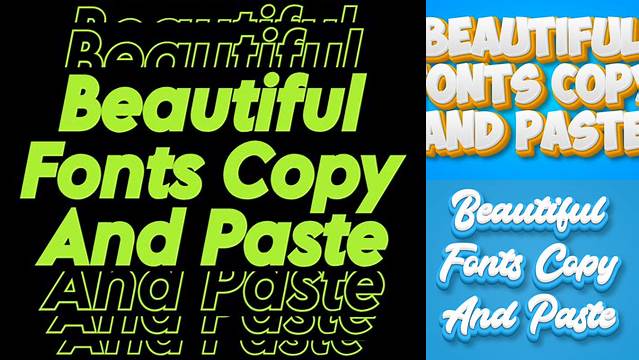
Lettering Fonts: Design, Copy, & Paste Guide For Stunning Typography
Lettering fonts design is a fantastic way to express yourself creatively, and guess what? You can totally copy and paste your way to some seriously awesome typography! We're diving deep into the world of lettering fonts, exploring how you can use them, where to find them, and how to make your designs pop. So, grab your coffee (or tea!), and let's get started. This guide is packed with tips, tricks, and all the info you need to level up your design game. Whether you're a seasoned pro or just starting out, there's something here for everyone. Ready to get your hands dirty (or, you know, your fingers tapping)? Let's go!
The Allure of Lettering Fonts Design: Copy and Paste Fundamentals
Lettering fonts design is more than just choosing a pretty font; it's about crafting a visual message that resonates with your audience. It's an art form that blends creativity, precision, and a dash of technical know-how. Lettering fonts, in particular, offer a unique advantage. They're often designed with a specific aesthetic in mind, allowing you to convey a certain mood or style with just a few carefully chosen characters. The beauty of lettering fonts design lies in its versatility. You can use them for everything from creating eye-catching headlines to designing logos and social media graphics. And the best part? You don't have to be a master calligrapher to create stunning designs. Thanks to the wonders of copy and paste, you can easily incorporate these beautiful fonts into your projects, saving you time and effort while still achieving professional-looking results. Understanding the fundamental principles of design, such as typography hierarchy, kerning, and leading, will further enhance your ability to create visually appealing layouts. By understanding how these elements work together, you can effectively guide the viewer's eye and create a cohesive design that clearly communicates your message. Choosing the right font is key. Different fonts evoke different feelings and styles. A bold, sans-serif font might be perfect for a modern, minimalist design, while a delicate script font could be ideal for a romantic invitation. There are endless possibilities, so take some time to experiment and find what works best for your project. The copy and paste method makes it incredibly easy to experiment with different fonts and styles without the hassle of manually drawing each letter.
Finding Your Perfect Lettering Fonts: Copy and Paste Resources Galore
So, where do you find these amazing lettering fonts that you can simply copy and paste? The internet is your oyster! There are tons of resources available, both free and paid, that offer a vast selection of fonts to suit any style. A great place to start is Google Fonts. This platform offers a wide variety of free, open-source fonts that you can download and use for both personal and commercial projects. They also have a fantastic search feature that allows you to filter fonts by various criteria, such as style, thickness, and even the language it supports. This is a lifesaver when you're searching for that perfect font. Next, explore sites like DaFont and Font Squirrel. These websites host thousands of fonts submitted by designers worldwide. Be sure to check the licensing agreements before using any font from these sites, as some may be free for personal use only, while others offer commercial licenses. If you're looking for something a little more premium, sites like Creative Market and Envato Elements offer high-quality, professionally designed fonts. These usually come at a cost, but the investment can be worth it if you're looking for unique and stylish fonts that will set your designs apart. These platforms often provide a more curated selection and additional design resources, such as mockups and graphics, to help you create a cohesive brand identity. Many designers also sell their fonts directly on their websites or through online marketplaces like Etsy. This is a great way to support independent artists and find fonts that aren't as widely used. Remember to always consider the legality of using a font. Respect the designer's licensing terms to avoid any legal issues. Finding the perfect lettering fonts with the copy and paste method is about exploring what suits your project.
Mastering Copy and Paste in Lettering Fonts: Design Made Easy
Alright, you've found your perfect lettering fonts, now what? Let's talk about the actual copy and paste process. It's as simple as it sounds, but there are a few tips and tricks that can help you maximize your results. First, identify the text you want to convert into lettering fonts. It could be a headline, a quote, or even a full paragraph. Select the text, copy it, and then paste it into your design software, such as Adobe Photoshop, Illustrator, or even Canva. Make sure the program supports the font you're trying to use. Some software might require you to install the font before you can use it. Most design programs have a font selection panel where you can browse your installed fonts and choose the one you want. Once you've chosen your font, adjust the size, color, and spacing to fit your design. Don't be afraid to experiment! Try different sizes, colors, and effects to see what looks best. Kerning (the space between individual letters) and leading (the space between lines of text) are crucial elements that can greatly affect the readability and aesthetic appeal of your text. Lettering fonts often have unique kerning and spacing that adds to their visual appeal. You can adjust these settings in your design software to fine-tune the look of your text. Consider using special characters and glyphs. Many lettering fonts include extra characters, such as swashes, flourishes, and alternative letter forms. These can add a touch of elegance or playfulness to your design. To access these characters, you'll often need to open the glyphs panel in your design software. Another cool trick is to copy and paste individual letters. This gives you more control over the placement and arrangement of each letter. You can then manually adjust the position and orientation of each letter to create custom lettering effects. Don't be afraid to overlap letters or create interesting arrangements! Copy and paste is your friend.
Font Pairing Power: Copy and Paste Techniques for Harmonious Designs
One of the biggest challenges in lettering fonts design is pairing fonts effectively. Choosing fonts that complement each other can make your design look polished and professional. Pairing fonts is a bit like putting together an outfit: you want to create a cohesive look that's both visually appealing and functional. Here are a few tips on how to choose the perfect font pairings: First, consider the style of your design. If you're creating a modern and minimalist website, you might pair a clean sans-serif font for the headlines with a slightly more decorative sans-serif or serif font for the body text. If you're going for a more vintage look, you could pair a script font with a classic serif font. Look for contrasts and similarities. Contrasting fonts can create visual interest, while similar fonts can convey a sense of harmony. For example, you could pair a tall, bold sans-serif font with a short, condensed one. Alternatively, you could pair two fonts that share similar letterforms or design elements. Try pairing a display font with a body font. Display fonts are often used for headlines and titles, while body fonts are used for longer blocks of text. The body font should be easy to read and should complement the display font without overpowering it. Use font pairing tools. There are many online tools that can help you find great font pairings. These tools often suggest fonts based on their styles and how they work together. Experiment and iterate. Once you have a few font pairings in mind, try them out in your design. See how they look together and make adjustments as needed. When using copy and paste, ensure that you maintain the consistency of your font pairings throughout your design. This will help create a cohesive look that is easy to read and visually appealing. Consider the font's personality. Does the font feel playful, serious, or elegant? Pair fonts that have a complementary personality to ensure your design delivers the right message. Avoid mixing fonts that clash. For example, don't pair a super-bold font with a delicate script font unless you're going for a specific, edgy look. Font pairing, with the help of copy and paste, is a great tool.
Lettering Fonts for Logos: Copy and Paste to Brand Identity
Lettering fonts are a powerful tool for creating logos that capture the essence of your brand. A well-designed logo can be the cornerstone of your brand identity, instantly recognizable and memorable. Choosing the right lettering fonts for your logo is crucial because it sets the tone for your entire brand. It conveys your brand's personality, values, and the message you want to communicate to your audience. Whether you're a startup, a small business, or a large corporation, your logo is often the first impression you make on potential customers. Here are some tips for using copy and paste to create stunning logo designs: First, understand your brand. What is your brand's personality? What are your values? What message do you want to convey? These questions should guide your font selection. For example, if you're a law firm, you might choose a classic serif font to convey professionalism and trustworthiness. If you're a children's toy store, you might choose a fun, playful sans-serif font. Research your competitors. What kind of logos are they using? Do you want to stand out or fit in? This research can help you find unique lettering fonts that differentiate your brand from the competition. Experiment with different font styles. Try out various font combinations to see what looks best. Consider using a combination of fonts. You might use a display font for your brand name and a simpler font for your tagline. This can create visual interest and hierarchy in your logo. Pay attention to readability. Your logo should be easy to read, even at small sizes. Avoid overly complex or intricate fonts. Consider the overall design. Make sure your logo complements your brand's colors and other design elements. Consider creating a mood board. This can help you visualize your brand's style and guide your font selection. Once you've chosen your fonts, use copy and paste to create your logo. Import the fonts into your design software and experiment with different layouts, sizes, and colors. Ensure your logo works well in different formats such as a website banner, business card, and social media profile picture. Remember, your logo is an investment. A well-designed logo can increase brand recognition, boost customer loyalty, and ultimately drive sales. Lettering fonts, combined with the magic of copy and paste, can help you bring your brand vision to life.
Social Media Magic: Copy and Paste Lettering for Engaging Content
Social media is a visual world, and lettering fonts are the perfect way to grab attention and create engaging content. Whether you're posting on Instagram, Facebook, Twitter, or any other platform, using lettering fonts can significantly improve your posts' visual appeal. Here's how you can use copy and paste to create social media magic: First, choose the right platform. Each social media platform has its own style and target audience. Consider which platform is best suited for your brand and target audience and adapt your font choices accordingly. Think about your content. What kind of content are you creating? A motivational quote? A promotional advertisement? The font should complement the content and enhance the overall message. Use bold and impactful fonts. Social media users scroll quickly, so you need a font that immediately grabs their attention. Bold, clear fonts are often the most effective. Create visually appealing graphics. Use a variety of colors, images, and graphics to make your posts more engaging. Experiment with different layouts. Use different font sizes, colors, and spacing to create visually interesting designs. Consistency is key. Use your brand's fonts consistently across all your social media platforms to create brand recognition. Don't be afraid to use special characters and glyphs. Utilize text-based design platforms. Platforms like Canva are especially great for quickly creating social media graphics with a wide range of font options and copy and paste functionality. Always remember to use high-quality images and graphics. Your fonts are just one part of the equation. Your graphics need to be visually appealing and relevant to your content. With a little bit of creativity and the power of copy and paste, you can transform your social media presence and make it stand out.
Lettering Fonts for Websites: Copy and Paste Typography Techniques
Your website is often the first point of contact for potential customers, so it's essential to make a strong impression. Lettering fonts can play a crucial role in creating a visually appealing and user-friendly website. Good typography can improve readability, enhance your brand's image, and ultimately encourage visitors to explore your site. Here's how you can use copy and paste techniques to create a stunning website: First, choose the right fonts. Select fonts that are easy to read, even at smaller sizes. Consider using a combination of fonts. You might use a display font for your headlines and a simpler font for your body text. Pay attention to the hierarchy. Use different font sizes and weights to create a clear visual hierarchy. Make sure your website is responsive. Your website should look good on all devices, from desktops to mobile phones. Test your website's readability. Make sure your text is easy to read and navigate. Use the copy and paste function to easily implement your chosen lettering fonts into the website's design and structure. Select the text, copy the font, and paste it into the specific sections of the website where you wish to apply the lettering fonts. Make sure that the font is web-safe or available for download through the appropriate online resources. Incorporate a font library, such as Google Fonts, to provide a wide range of font choices. Ensure consistent branding. Use the same fonts and styles throughout your website to create a cohesive brand identity. Consider using a font for headlines, another for subheadings, and a final one for body text. This creates visual interest. Utilize kerning and leading to ensure that the text is readable and well-spaced. Use visual cues, such as bold text, italics, and different colors, to create emphasis. The copy and paste method will make your website more engaging.
Lettering Fonts in Print Design: Copy and Paste for Professional Results
Print design is still a powerful way to communicate your message, and lettering fonts can elevate your brochures, flyers, posters, and more. In a world dominated by digital content, a well-designed print piece can stand out and leave a lasting impression. Here's how to use copy and paste techniques to achieve professional results in print design: First, consider your audience. Who are you trying to reach? This will inform your font choices. Choose the right fonts. Select fonts that are easy to read at the desired size. Remember that print design requires higher resolution images and graphics. Make sure your fonts are high-resolution and clear when printed. Think about contrast. Use different font styles, weights, and colors to create visual contrast and hierarchy. Pay attention to the layout. Arrange your text and images in a way that is visually appealing and easy to understand. Use the copy and paste function to integrate the chosen lettering fonts into your design software. This allows you to easily apply your selected fonts to your chosen text and content. Ensure the print document is correctly formatted. Create the document to the appropriate size and dimensions, and make sure the text is placed in the right sections to ensure readability. Consider using a design program. A professional design program like Adobe InDesign is designed for print, offering more layout options and advanced typography tools. Use this for creating a professional, polished final design. Always proofread. Review your design carefully before sending it to print. The goal is to create a visually appealing and informative print piece that effectively communicates your message.
Lettering Fonts and Branding: Copy and Paste for a Cohesive Brand Identity
Lettering fonts are a crucial part of building a cohesive brand identity. They help to communicate your brand's personality, values, and message. Consistent use of specific fonts across all your marketing materials creates brand recognition and trust. Here's how you can use copy and paste to strengthen your branding through lettering fonts: First, define your brand's personality. This is the foundation of your branding. Is your brand playful, serious, modern, or traditional? Your font choices should reflect this. Create a brand style guide. A style guide outlines all the elements of your brand identity, including your logo, colors, fonts, and imagery. Choose a consistent set of fonts. Select a few fonts that will be used across all your marketing materials. Use the copy and paste method to consistently apply your chosen fonts to all your marketing content. This consistency is key to building brand recognition. Experiment with different font pairings. Choose fonts that complement each other and create a visually appealing look. Consider the legibility of your fonts. Make sure the fonts you select are easy to read, especially at smaller sizes. Ensure that your fonts can be reproduced effectively across various media. Your fonts need to work well in both print and digital formats. Develop a branding package. A branding package includes all the essential elements of your brand identity. Always consider the context. Choose fonts that are appropriate for your industry and target audience. The goal is to create a strong brand identity that resonates with your target audience and helps build brand loyalty.
Copy and Paste Lettering Fonts: Workflow and Design Software Options
Using copy and paste with lettering fonts is all about streamlining your workflow and choosing the right design software. The right tools can make the process effortless and efficient. Here's a breakdown of popular design software and how to make the most of the copy and paste functionality: First, choose your design software wisely. Several software options are available, including Adobe Photoshop, Adobe Illustrator, CorelDRAW, and Canva. Consider the features each software offers. These programs allow you to install and use fonts with ease, and they support copy and paste functionality. Use online resources. Online platforms like Font Squirrel, DaFont, and Google Fonts offer many fonts for copy and paste. Use the software's font panel to search for your ideal font. This panel displays your installed fonts and offers options for customization. Understand the process of importing fonts. Fonts need to be installed to use them on any platform. After installing, you can start copying and pasting text and applying your chosen fonts. Use the copy and paste method to move lettering fonts from one application to another or within the same design. Adjust font sizes, colors, and spacing to match your design's needs. Experiment with special characters and glyphs. These are found in most font panels. The best option will depend on your design needs and your level of expertise. Explore all the features the software offers to increase design productivity. The goal is to create stunning designs quickly and easily.
Lettering Fonts and the Art of Kerning: Copy and Paste for Perfect Spacing
Kerning, the art of adjusting the space between individual characters, is essential in lettering fonts design. Kerning ensures that your text looks balanced and visually appealing. Without proper kerning, your text can look awkward, unreadable, and unprofessional. Here's how to master kerning and leverage the copy and paste function: First, understand the basics of kerning. Kerning is the process of adjusting the space between two specific characters. It is done to correct any visual imbalances that occur naturally in various fonts. Some letter combinations, such as "AV" or "WA", might look too far apart or too close together if not kerned properly. Learn to recognize problematic letter combinations. Pay attention to how different letters interact with each other. Experiment with kerning in your design software. Use the copy and paste function to make adjustments easier and faster. Select the text, choose your font, and adjust kerning in your design software. Most design software allows you to select individual letters and adjust the kerning value. Master the techniques. Kerning requires a keen eye and a sense of visual balance. Practice makes perfect. Don't be afraid to zoom in. Zooming in allows you to see more clearly the spacing issues between letters. Use kerning to enhance the readability and visual appeal of your text. Practice good typography. Learning kerning will increase the appeal of your designs. It can add a lot of personality to your design. Kerning is the art of creating balanced text.
Leading Lines and Lettering Fonts: Copy and Paste for Visual Harmony
Leading, also known as line spacing, is another crucial aspect of typography that affects the overall visual harmony of your design. Leading refers to the vertical distance between the baselines of consecutive lines of text. It influences readability, the rhythm of your text, and the overall aesthetic of your design. Here's how to use copy and paste to master leading in combination with lettering fonts: First, understand the basics of leading. Leading helps determine how comfortably the text flows. Find the right leading for your lettering fonts. Experiment to find the optimal leading value. The optimal leading value varies depending on the font size, style, and the overall design. Too little leading can make your text appear crowded and difficult to read. Too much leading can make the text feel disjointed and fragmented. Use the copy and paste function to quickly test and compare different leading values. You can copy your text, paste it into your design software, and experiment with different leading settings. Pay attention to the contrast between your text and the background. Make sure your text is legible. Avoid setting leading too tight or too loose. Consider the overall design. Choose leading values that complement the other design elements. Use leading to improve the readability, aesthetics, and visual appeal of your designs. Leading is an important tool.
Choosing the Right Font Size with Lettering Fonts: Copy and Paste for Readability
Choosing the right font size is crucial for readability and the overall impact of your lettering fonts design. If your text is too small, it will be difficult to read. If your text is too large, it can dominate the design and be visually overwhelming. Here's how to use copy and paste to choose the right font size: First, consider your audience and the context of your design. Make sure your font size aligns with your design's goal. For example, headlines typically use larger sizes, while body text uses smaller sizes. Test the font size. Don't be afraid to experiment. Use the copy and paste method to experiment with different font sizes and see what works best. Choose the right font size, use the software's font panel to adjust. Most design software includes a font panel that allows you to change the size of your text easily. Make sure your text is legible. Use the copy and paste function to see how different fonts look with different font sizes. Use font size to establish a clear visual hierarchy. Large font sizes typically grab the eye. Font size is a very useful tool.
Color Psychology and Lettering Fonts: Copy and Paste for Emotional Impact
Color is a powerful tool in design, and understanding color psychology can significantly enhance the impact of your lettering fonts. Colors evoke emotions and influence the way people perceive your message. Here's how to use copy and paste in conjunction with color psychology: First, learn about the basics of color psychology. Use copy and paste to quickly try different color combinations. Experiment with different color palettes. Use the software's color panel to explore various color schemes. Consider the impact of different colors. Red can convey excitement, while blue can convey trust. Consider the context of your design. Consider the mood you want to create. Use the copy and paste function to apply different colors to your text. Experiment with different color combinations and see how they look. Color psychology is a great tool to have.
Lettering Fonts and the Power of Negative Space: Copy and Paste for Balance
Negative space, also known as whitespace, is the empty area around and between elements in your design. It's a vital tool for creating balance, enhancing readability, and drawing attention to your lettering fonts. Here's how to effectively use copy and paste in conjunction with negative space: First, understand the basics of negative space. Understand how to use negative space in your designs. Use the copy and paste function to adjust the spacing between text elements and other design elements. Experiment with the layout. Adjust the arrangement of your text. The right amount of negative space enhances readability. The right amount of negative space will draw attention. Use negative space to create a sense of balance and harmony in your design. Negative space can create visual interest.
The Role of Lettering Fonts in User Experience (UX): Copy and Paste for Usability
Lettering fonts play a critical role in user experience (UX). The fonts you choose can significantly impact how users perceive your website or app. Here's how to use lettering fonts to improve the user experience (UX): First, choose readable fonts. Prioritize readability. Choose appropriate fonts. Select fonts that are appropriate for your target audience. Establish a clear visual hierarchy. Use the copy and paste function to test different font sizes and weights. Different fonts will improve the user experience. Test your design on various devices. Make sure your design is responsive and looks great on all devices. Lettering fonts are important for user experience.
Typography Trends and Lettering Fonts: Copy and Paste for Contemporary Design
Typography trends constantly evolve, and staying up-to-date can help you create contemporary and stylish designs. Here's how to leverage current typography trends with the copy and paste functionality: First, stay informed about the latest trends. Research what's popular. Experiment with different font styles and combinations. Use the software's font panel to explore new trends. Keep an eye on design blogs and platforms. Many blogs will keep you up to date. Implement these trends by using copy and paste to apply them to your lettering fonts. Use the copy and paste function to integrate the latest trends. Consider the context of your design. Ensure the trends you adopt align with your brand. The goal is to create designs that are relevant, current, and visually appealing.
Lettering Fonts and Accessibility: Copy and Paste for Inclusive Design
Making your lettering fonts accessible ensures that your designs can be enjoyed by everyone, including people with disabilities. Accessibility is an important consideration in modern design. Here's how to use the copy and paste function to create accessible lettering fonts: First, choose readable fonts. Prioritize fonts that are easy to read for everyone. Consider the contrast between your text and background. Ensure there's enough contrast for readability. Use the copy and paste function to test your designs. Test different color combinations and fonts to ensure readability. Follow accessibility guidelines. Adhere to accessibility guidelines. Accessibility is vital.
Lettering Fonts and Motion Graphics: Copy and Paste for Animated Typography
Lettering fonts are also widely used in motion graphics to create animated typography and dynamic text effects. The use of animated typography can enhance the visual appeal of video content. Here's how to use copy and paste in motion graphics: First, choose motion graphics software. Utilize software like Adobe After Effects. Import your lettering fonts. Integrate the fonts into your motion graphics projects. Apply animation effects. Use copy and paste functionality to animate text. Experiment with different animation styles. Experiment with different animation styles and text effects. Motion graphics add dynamism to any project.
Combining Lettering Fonts with Graphics: Copy and Paste for Creative Integration
Combining lettering fonts with graphics can lead to captivating and visually striking designs. Here's how to combine the two: First, choose your lettering fonts. Select lettering fonts that will complement the graphics. Create your graphics. Design or source your graphics. Use copy and paste to integrate your fonts. Copy and paste lettering fonts into your designs and create cohesive designs. Experiment with layouts. Experiment with how the fonts and graphics relate. Graphics and lettering font pairings can create a visual statement.
Lettering Fonts for Email Marketing: Copy and Paste for Effective Communication
Lettering fonts play a crucial role in the effectiveness of your email marketing campaigns. The fonts you use can influence how recipients read and engage with your message. Here's how to use lettering fonts in your email marketing strategy: First, choose easy-to-read fonts. Opt for fonts that are easily readable across various devices. Use a brand-consistent approach. Consistently use fonts in your emails. Create an effective visual hierarchy. Utilize font sizes, colors, and weights to emphasize important information. Copy and paste in email marketing is key.
Lettering Fonts in E-commerce: Copy and Paste for Converting Customers
In the competitive world of e-commerce, effective typography can play a significant role in converting visitors into customers. Here's how to use lettering fonts to boost conversions: First, choose fonts that are aligned with your brand. The fonts you choose should represent your brand. Create a clear and effective product description. Make sure that the product descriptions are easy to read. Use the copy and paste function to add fonts to your descriptions. Lettering fonts can help in the e-commerce space.
Lettering Fonts and Branding: Copy and Paste for Brand Recognition
Consistent use of lettering fonts is a crucial part of branding, helping to create brand recognition and trust. Here's how to use copy and paste to promote branding: First, select fonts that align with your brand. Choose fonts that accurately reflect your brand's identity. Use copy and paste to implement those fonts. Use copy and paste to apply them consistently. Develop a style guide. Having a style guide can provide more structure. The goal is to create strong brand recognition.
Copy and Paste Lettering Fonts: Troubleshooting Common Design Issues
Even with the ease of copy and paste, you may encounter some common design issues. Knowing how to troubleshoot them can save you time and frustration. Here are some common issues and their solutions: First, text not displaying correctly. Ensure that the font is installed correctly. Check font licenses. Spacing and Alignment Issues. Check the kerning. Design software compatibility issues. Consider the format of your font. Review font rendering issues. Review font rendering issues to ensure that your fonts will work. The goal is to create visually appealing and effective designs.
The Future of Lettering Fonts: Copy and Paste in a Changing World
As technology and design trends evolve, the use of lettering fonts will continue to adapt. Lettering fonts are constantly evolving. Here's a glimpse into the future: First, Artificial intelligence. AI will help in design. Emerging technologies. New technologies will bring new possibilities. Increased focus on accessibility. There will be more focus on making design accessible. The use of lettering fonts will continue to change.